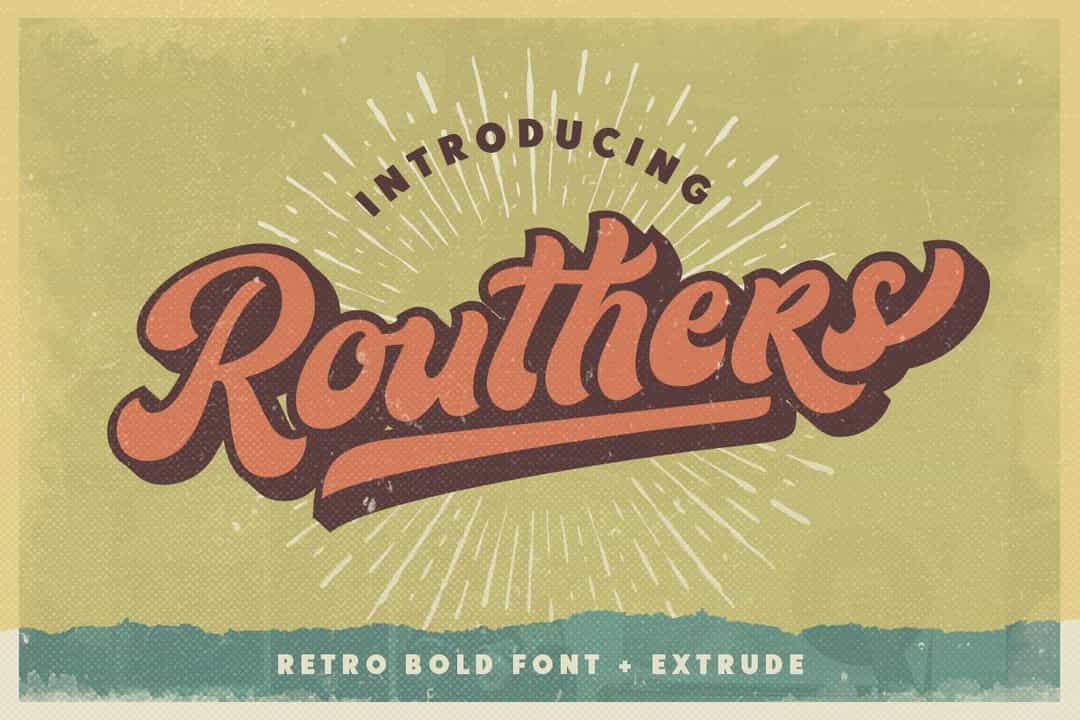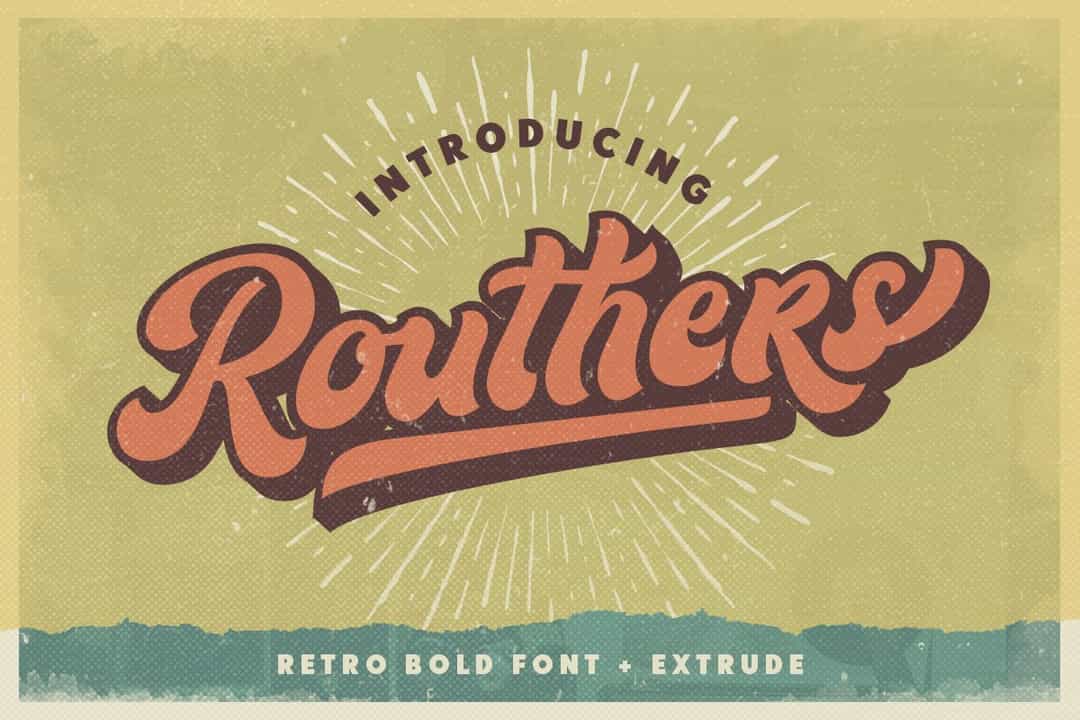
Routhers Retro is a high contrast retro-style script font that includes Upper and Lower Case letters, Numbers and Special Characters, Ligatures, 4 style alternates Swash Numbers, and Underline style. Suitable for logos in clothing design and for quotes this font is supplied with PUA encoding.